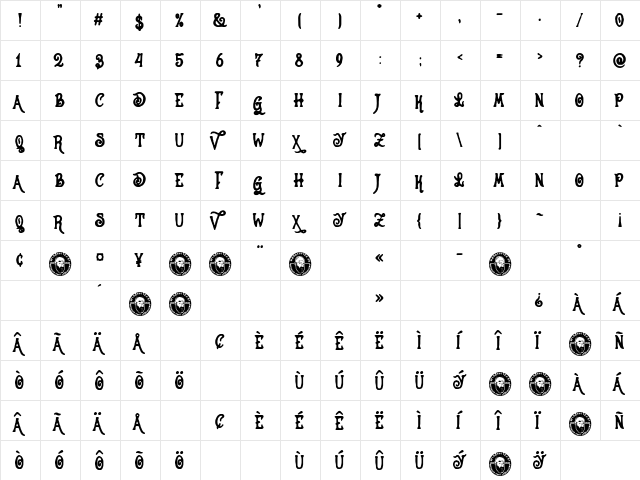
La Isla Tortuga Regular
Design Context for La Isla Tortuga Typeface
La Isla Tortuga is a composed and adaptable typeface that performs quietly and consistently across a wide range of design contexts.